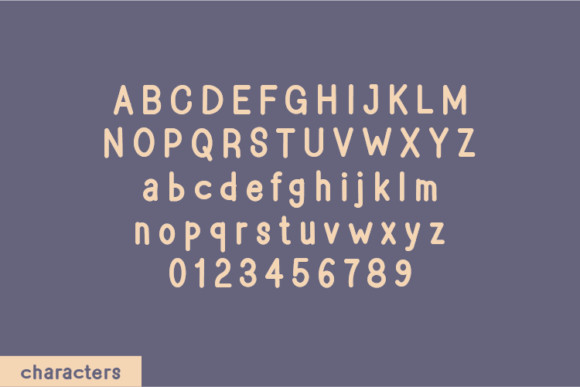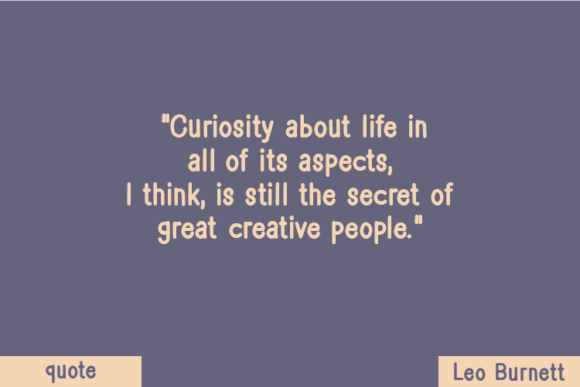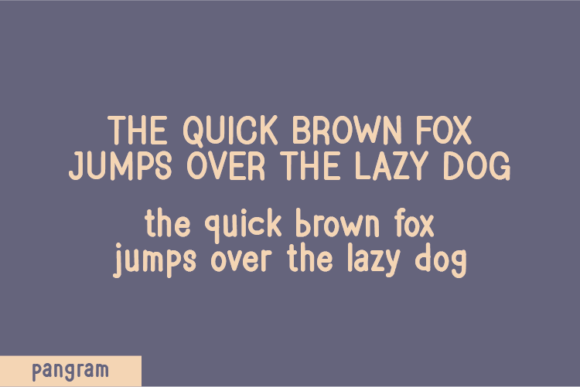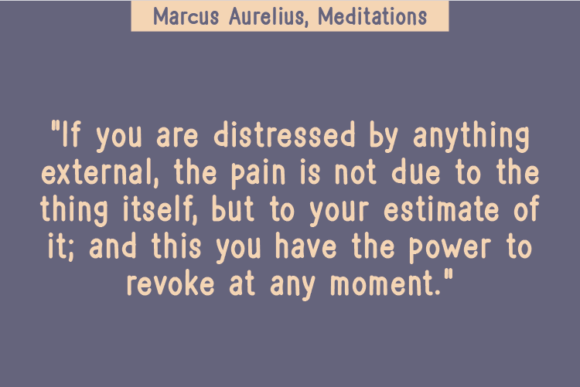
Introduction to Hypnuseos Font
Have you ever found yourself scribbling notes in the dead of night, pouring your heart onto the page as the words flow effortlessly? For many creatives, those late-night writing sessions are the spark that ignites their imagination and sets their ideas ablaze. As you pour over your handwritten notes, you might find yourself drawn to the unique, organic feel of your handwriting – a quality that can be replicated in your design work with the right tools.
Enter the Hypnuseos Font, a natural handwritten font that embodies the essence of handwritten notes without sacrificing the high-quality look that designers demand. This font is a game-changer for any creative project, offering a transparent background that makes it easy to customize and integrate into your designs.
Key Features of Hypnuseos Font
- High-quality, unique font design ideal for creative projects requiring a touch of elegance and sophistication.
- Features a high-resolution design, perfect for use in print materials, digital displays, and web applications.
- Perfect for designers looking for a versatile and stylish font to elevate their creative project.
Honest Review: Hypnuseos Font
I recently had the chance to work with the Hypnuseos Font for a creative project and I must say, I was quite impressed. The high quality of this font made my design shine, and I loved how versatile it was.
- ✨ The unique design style that sets it apart from other fonts.
- ✨ The transparent background that allows for easy customization.
- ⚠️ The font can be quite bold, which may not be suitable for all design projects.
- ⚠️ Some users may find the font difficult to read at small sizes.
Overall, I’m extremely satisfied with the Hypnuseos Font. Its unique style and high quality make it a valuable design resource. I would highly recommend it to designers working on creative projects that require a bold and eye-catching font.
Tips for Getting the Most Out of Hypnuseos Font
To get the most out of Hypnuseos Font, experiment with different font sizes, colors, and styles to find the perfect fit for your creative project. You can also use Hypnuseos Font in combination with other design resources to create a unique and eye-catching design.
Hypnuseos Font is ideal for various creative projects, including logos, typography, presentations, and documents. Its high-quality design and transparent background make it a versatile design resource for any project.